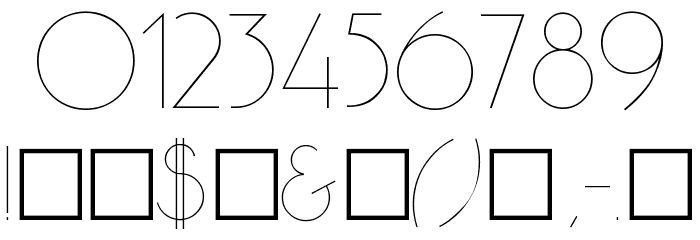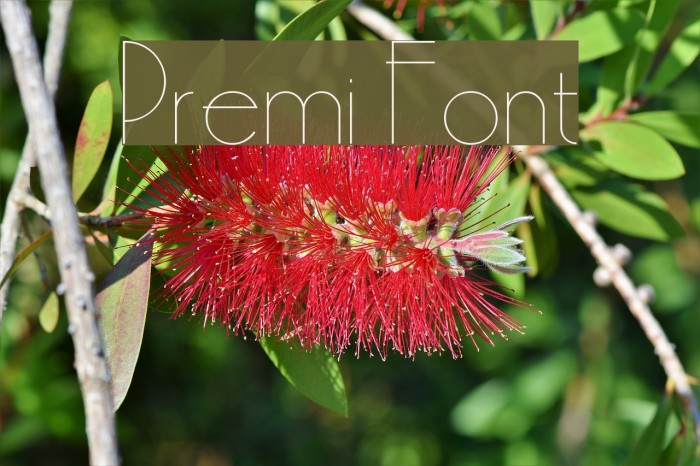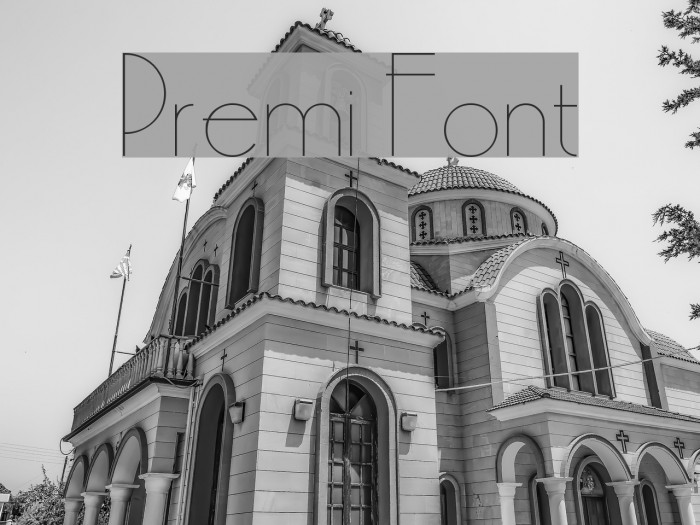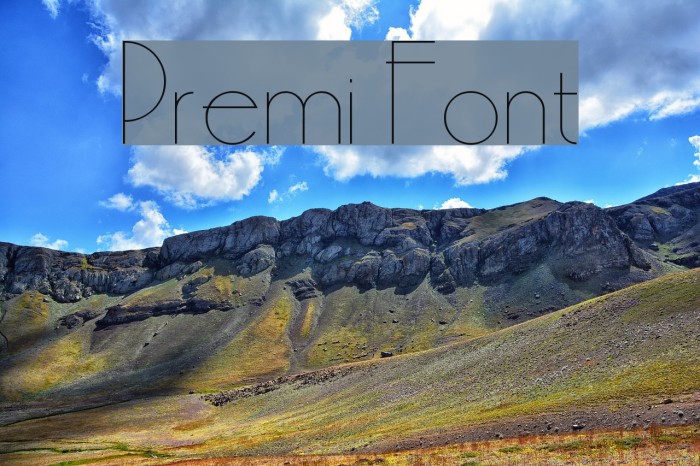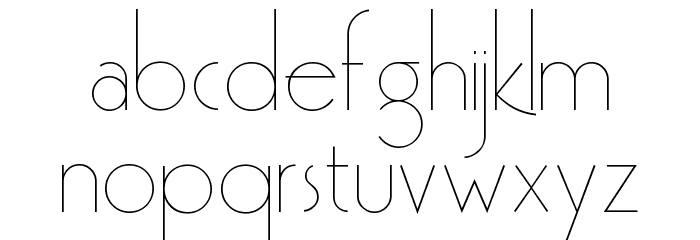
Premi Font
Premi Description
This font features a modern and elegant design with thin, elongated strokes and a geometric structure. The uppercase letters are tall and narrow, with a distinct art deco influence, while the lowercase letters maintain a consistent thinness that complements the uppercase. The numerals are sleek and align well with the overall aesthetic, providing a cohesive look. Special characters are designed with the same thin lines, ensuring uniformity across all glyphs. The font's minimalistic style makes it suitable for contemporary design projects, where a clean and sophisticated appearance is desired.